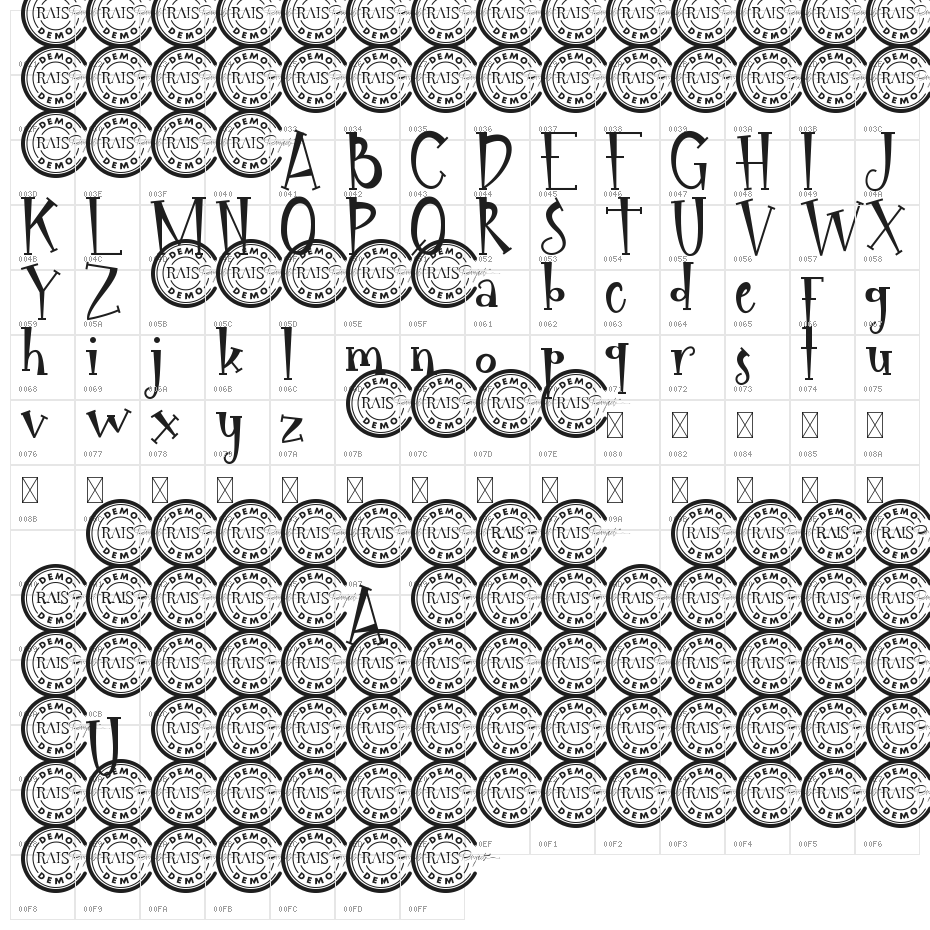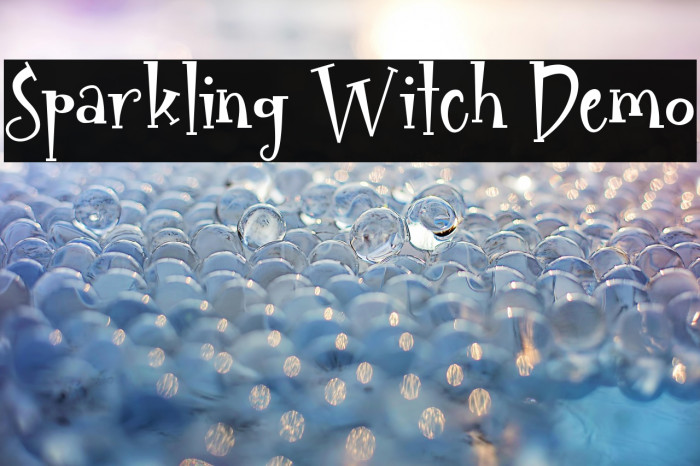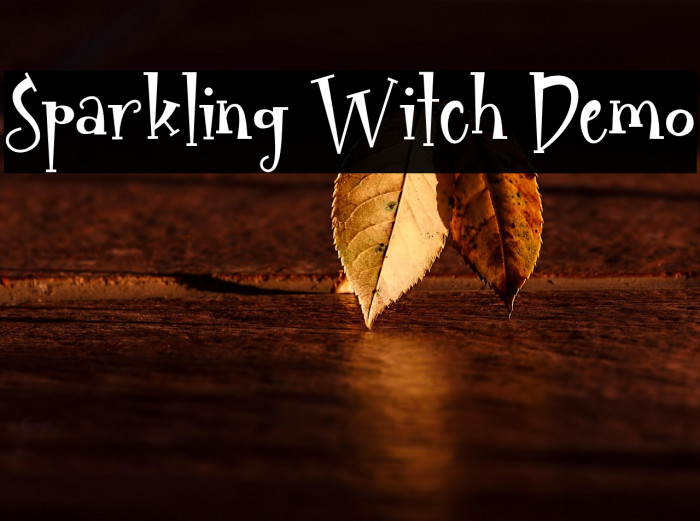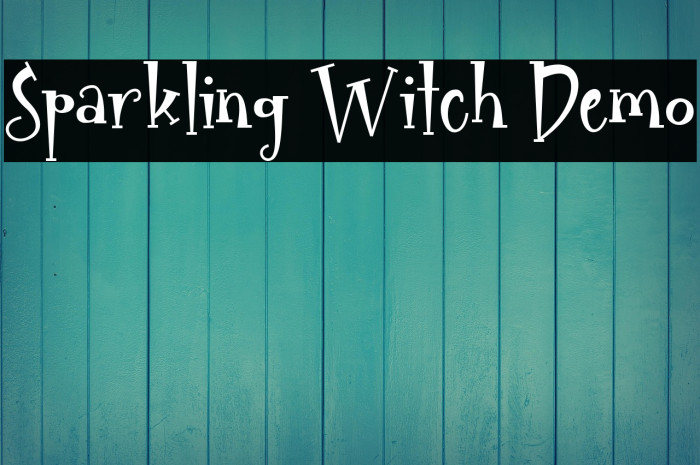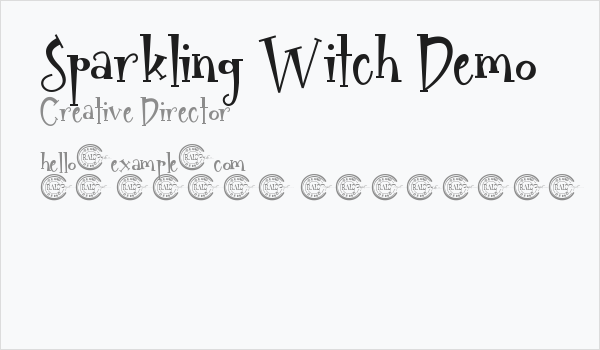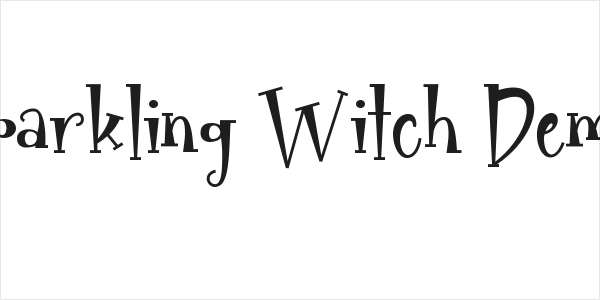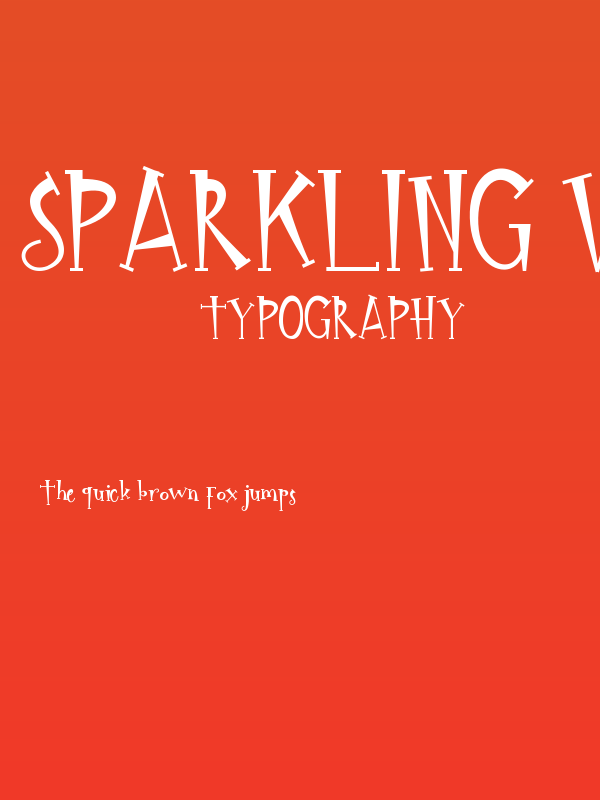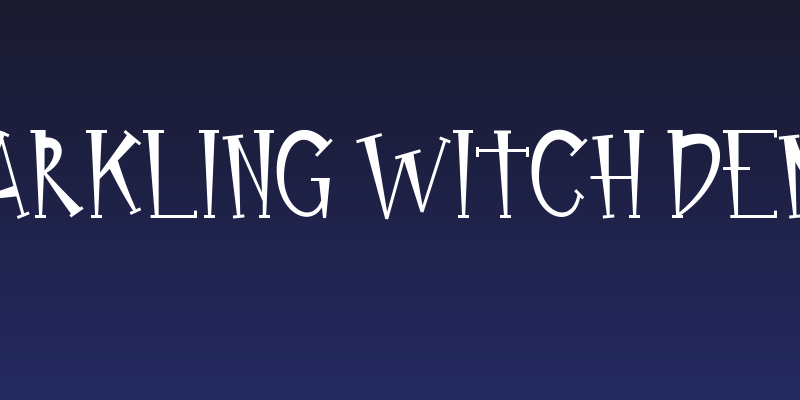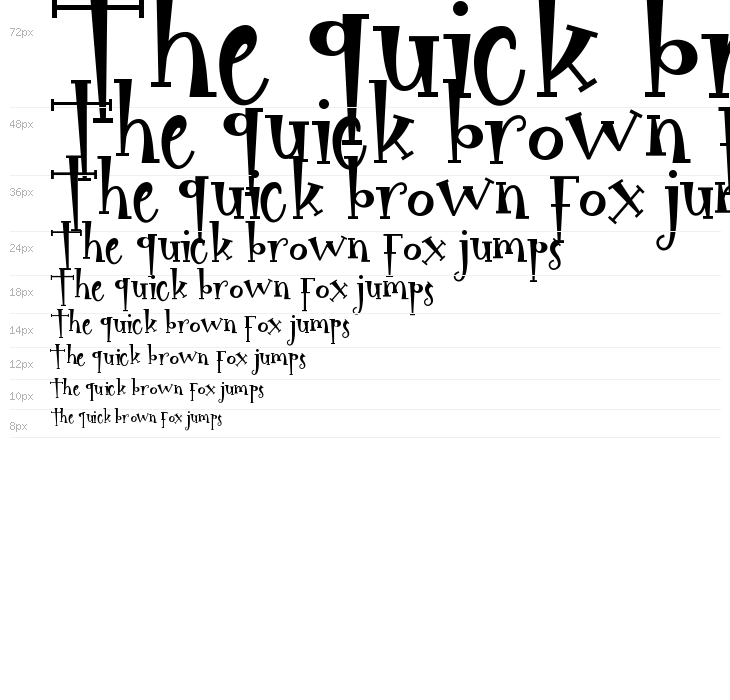
Sparkling Witch Demo Font
Sparkling Witch Demo Description
This font features a whimsical and playful design, characterized by its tall, narrow letters with exaggerated curves and angles. The uppercase letters have a distinct, quirky charm with varying stroke widths that add a dynamic feel. The lowercase letters maintain this playful aesthetic, with some letters featuring unique flourishes. The numbers and special characters follow the same style, ensuring consistency throughout. This font's distinctive style makes it ideal for creative and artistic projects, where a touch of fun and uniqueness is desired.
Fonts by RaisProject